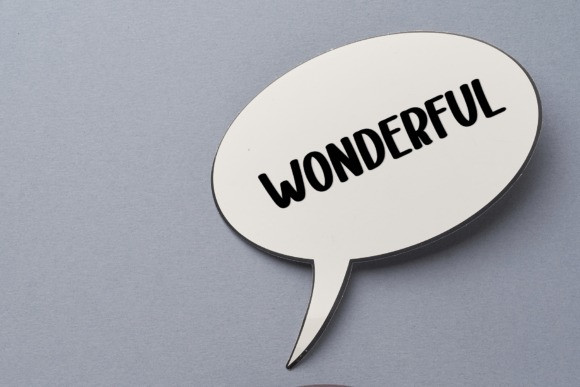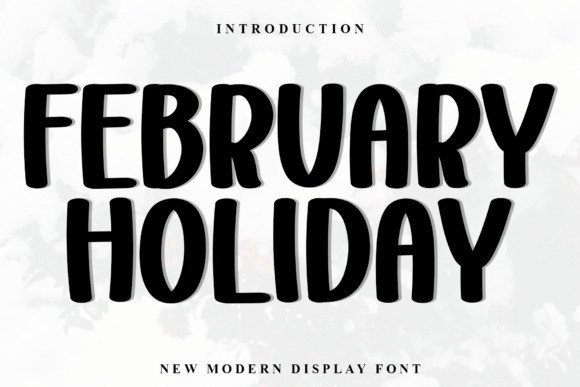
February Holiday Display Font
February Holiday Display Font is a bold and modern display font with smooth, rounded edges that create a warm and approachable feel. Perfect for holiday-themed designs, greeting cards, posters, and branding, this typeface brings a fun and festive energy to any project. Make your designs shine with February Holiday!